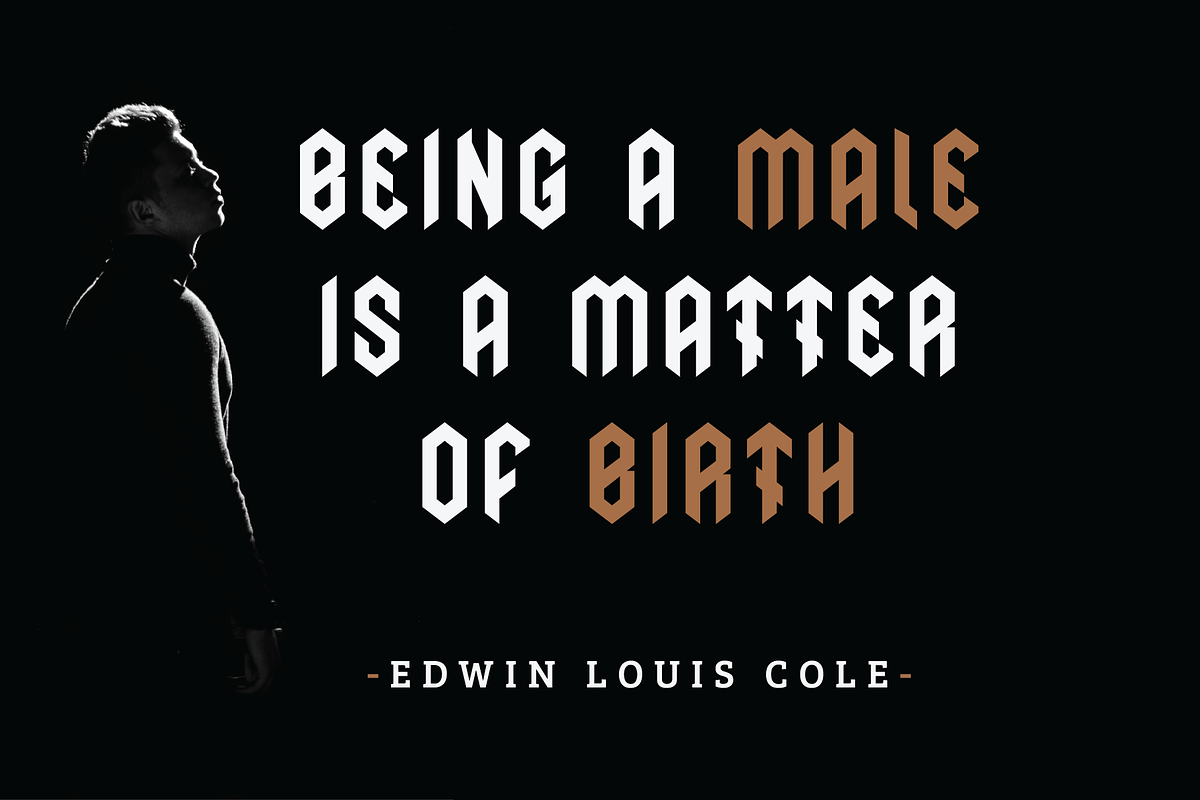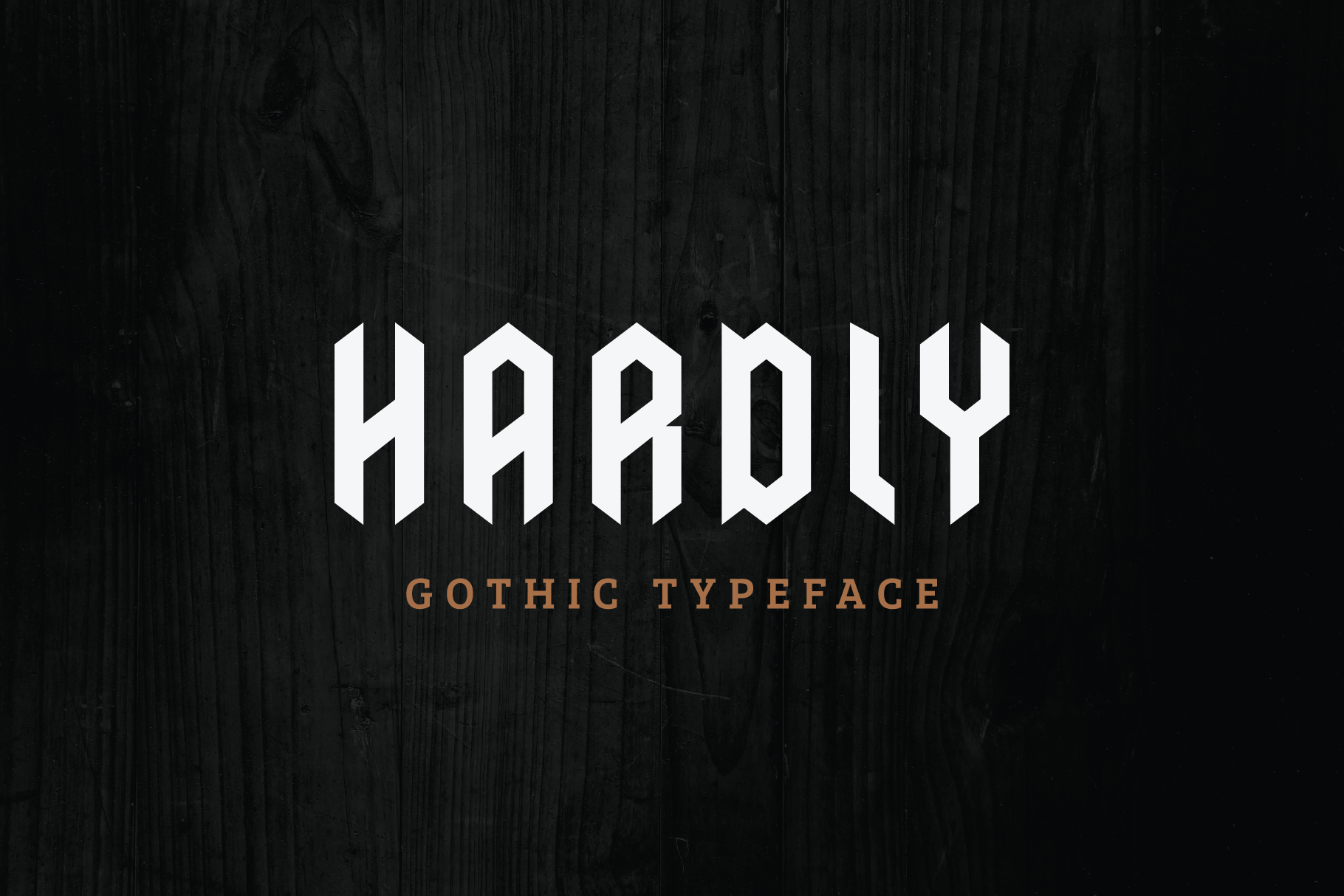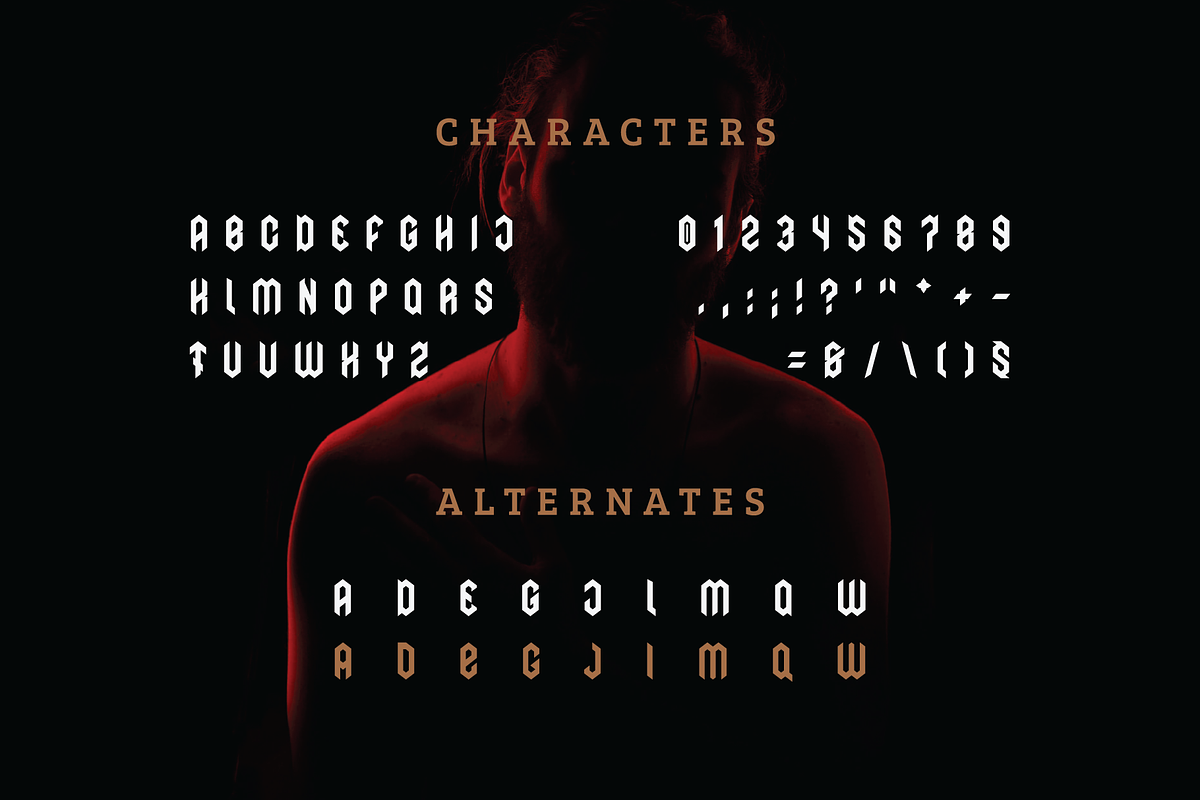
Hardly Modern Gothic Font
Hardly is a modern yet vintage gothic font, inspired by blackletter and vintage elements this gothic font is the perfect choice for your next project if you want to deliver a vintage yet sophisticated presentation, hardly gothic typeface is perfect for logo designs, t-shirt designs, quotes, titles, headers, posters, etc.